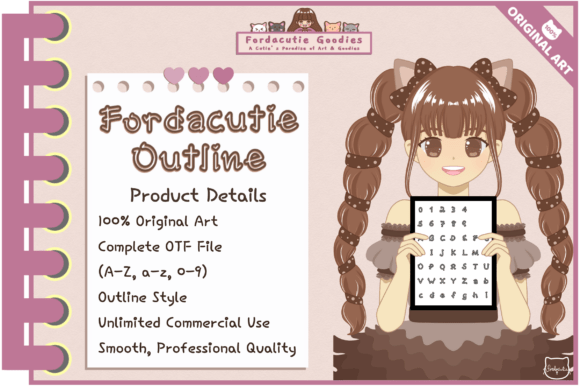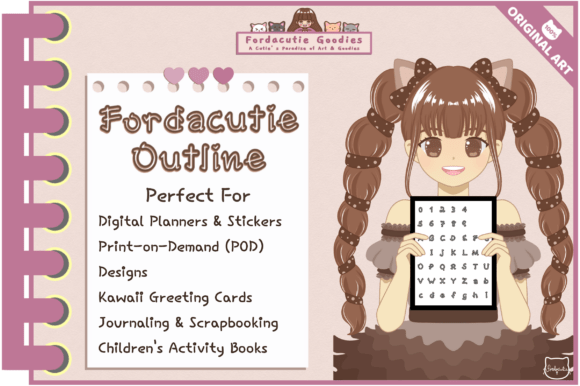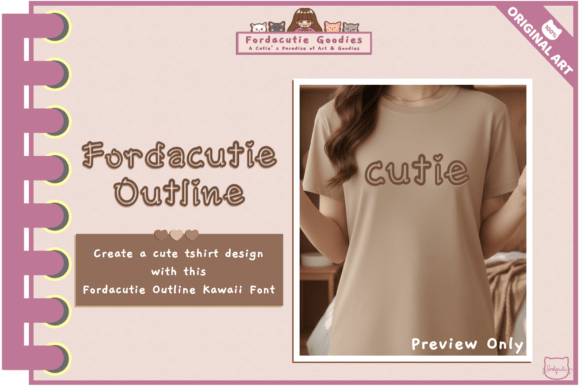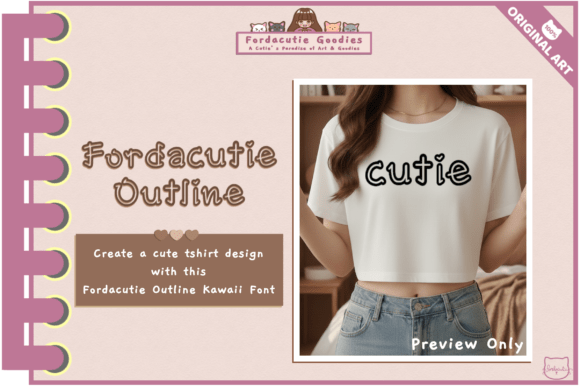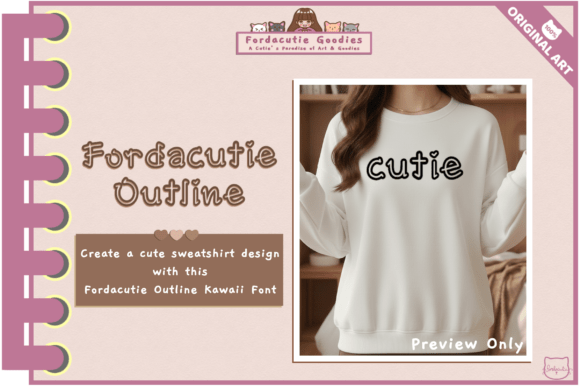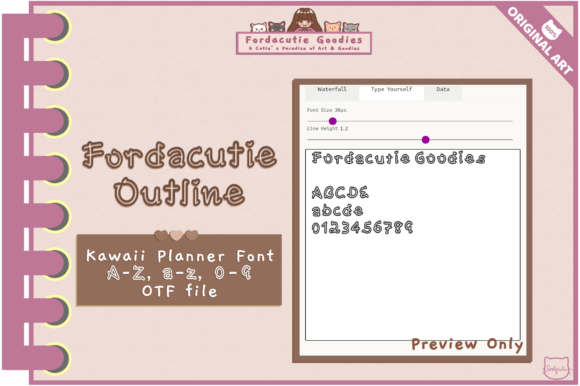
Give Your Designs a Dose of Irresistible Cuteness
You know that moment when you’re working on a design and you just can’t quite capture the perfect balance of playful and professional? The one where your text looks too plain, but adding more details makes it feel cluttered? That’s where the Fordacutie Outline Font comes in – a one-of-a-kind, hand-drawn font designed to add a touch of soft, adorable charm to your creations.
Perfect for layering, coloring, and making your text pop on stickers, digital planners, greeting cards, and POD merchandise, the Fordacutie Outline Font is a valuable addition to any designer’s toolkit. With its smooth lines and perfectly rounded edges, this font ensures professional quality in all your software, from Procreate to Cricut Design Space. Whether you’re a seasoned pro or just starting out, this versatile font is sure to become your go-to for all things cute and creative.
Fordacutie Outline Font Key Features
- Unique Characteristics: Fordacutie Outline Font features a distinctive outline style with clean lines and geometric shapes, making it ideal for modern and minimalist designs.
Fordacutie Outline Font Review
I recently had the chance to work with the Fordacutie Outline Font, and I must say it’s a unique and interesting addition to any design project. ✨ The font’s bold lines and playful feel make it perfect for creating eye-catching titles and headings. The font is also highly customizable, allowing designers to adjust the size, color, and line width to suit their needs.
One of the things I like most about Fordacutie Outline Font is its versatility. It can be used in a variety of settings, from modern websites and apps to more traditional print materials. The font also comes in a range of weights, from light to bold, making it easy to match with other fonts in a design.
- Unique and playful feel
- Versatile and suitable for a range of settings
- Comes in a range of weights
- Some users may find the font too bold or overwhelming
- Not suitable for fine text or body copy
- May not be as readable in smaller sizes
Overall, I think the Fordacutie Outline Font is a great addition to any designer’s toolkit. While it may have some limitations, its unique feel and versatility make it a great choice for designers looking to add some personality to their work.
Tips for Getting the Most Out of Fordacutie Outline Font
To get the most out of Fordacutie Outline Font, use it for:
- Titles and headings to add a touch of elegance.
- Labels and captions to create a clean and minimalist look.
- Signatures and logos to add a personal touch.
Fordacutie Outline Font is commonly used in:
- Personal projects and creative endeavors.